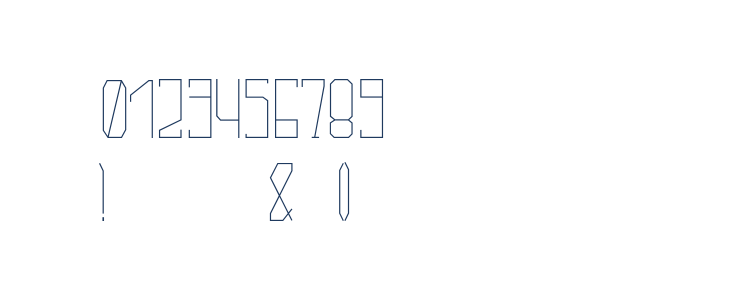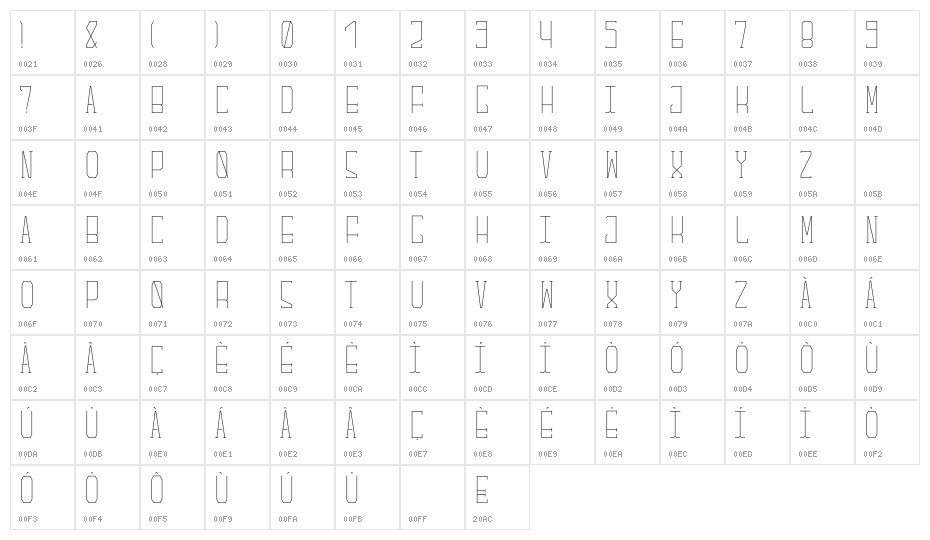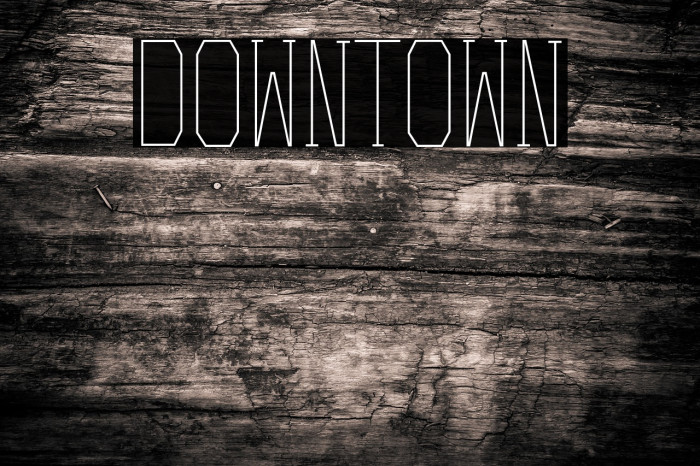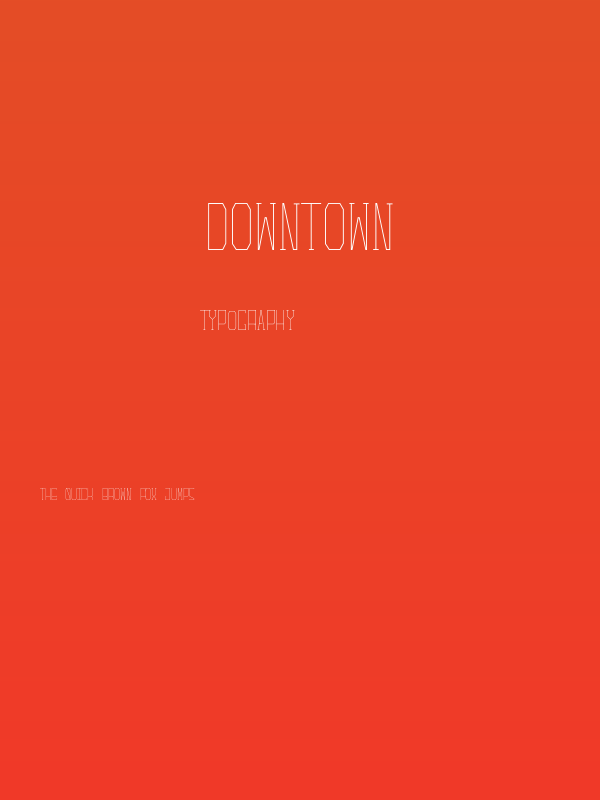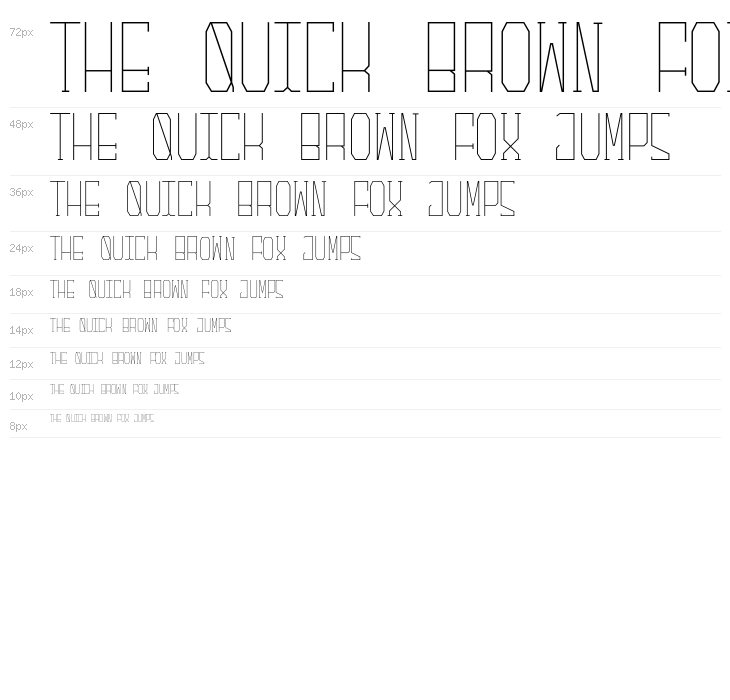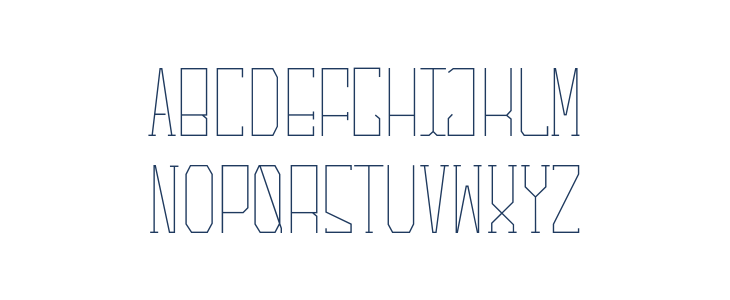
Downtown Font
Downtown Description
This font features a geometric and angular design, characterized by its thin, linear strokes and sharp corners. The uppercase letters are distinct with a futuristic and minimalist aesthetic, while the lowercase letters maintain a consistent style, enhancing readability. The numerals and special characters follow the same design principles, ensuring uniformity across all characters. The font's unique structure makes it stand out, offering a modern and edgy look suitable for contemporary designs.